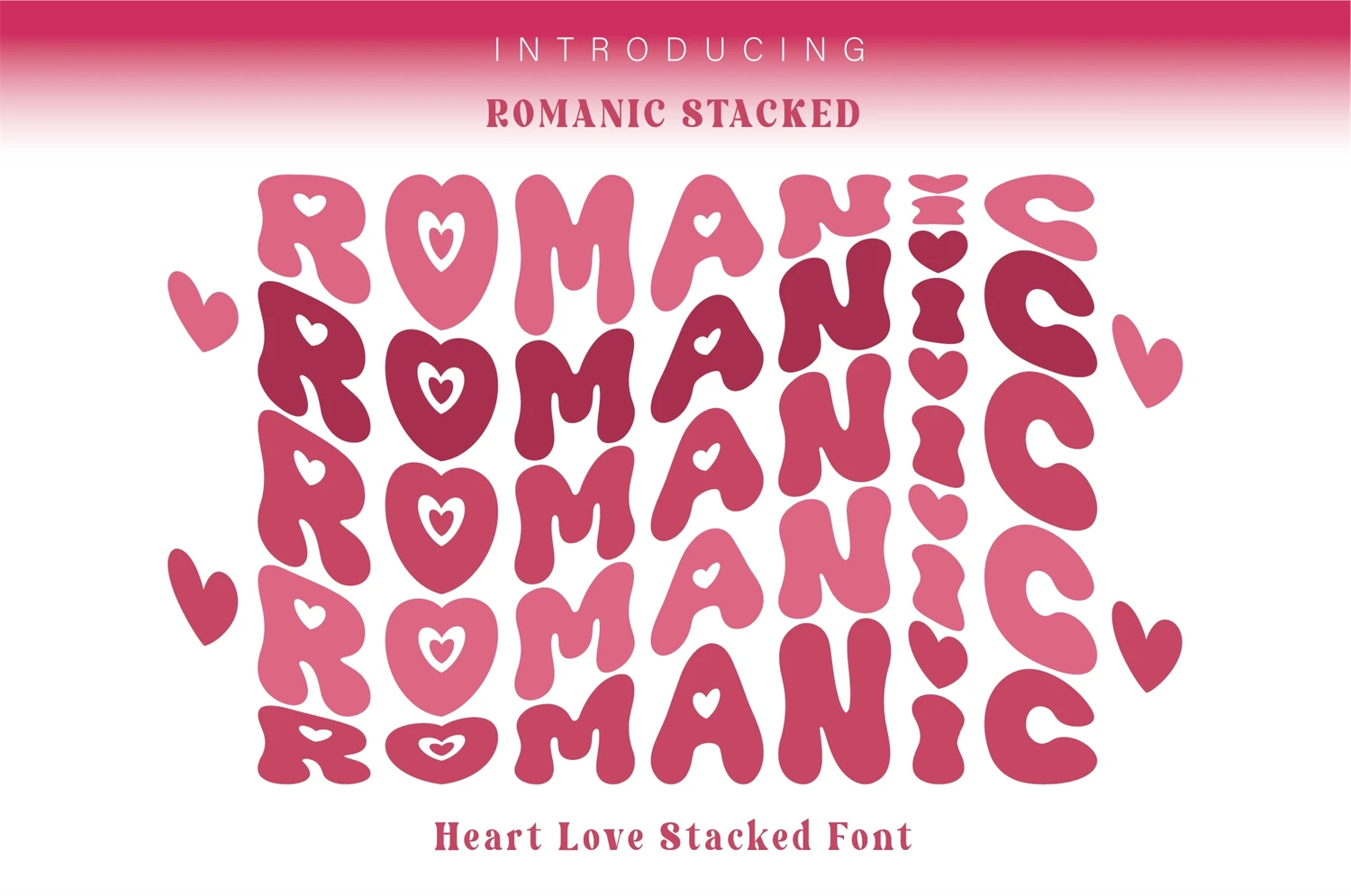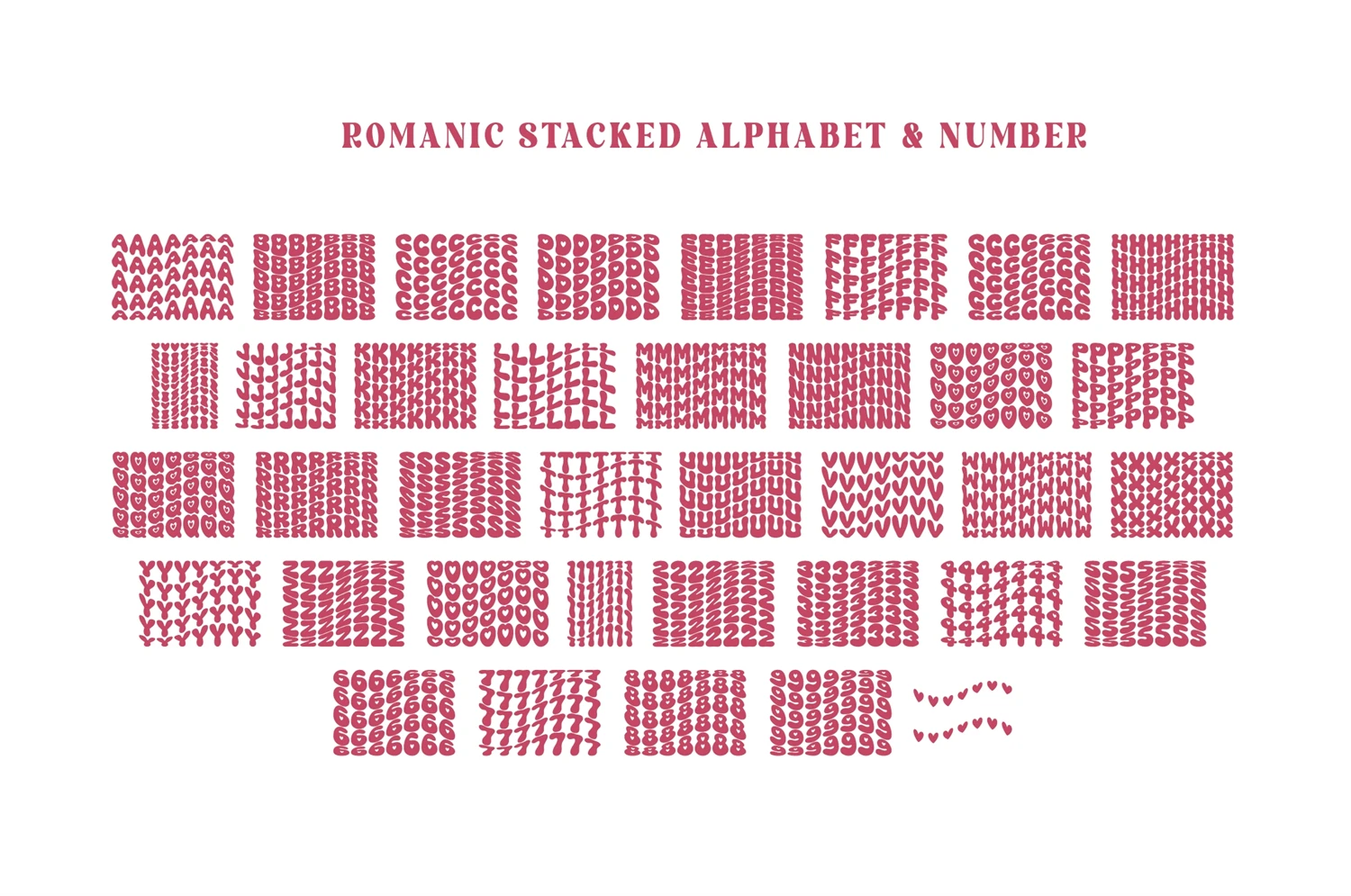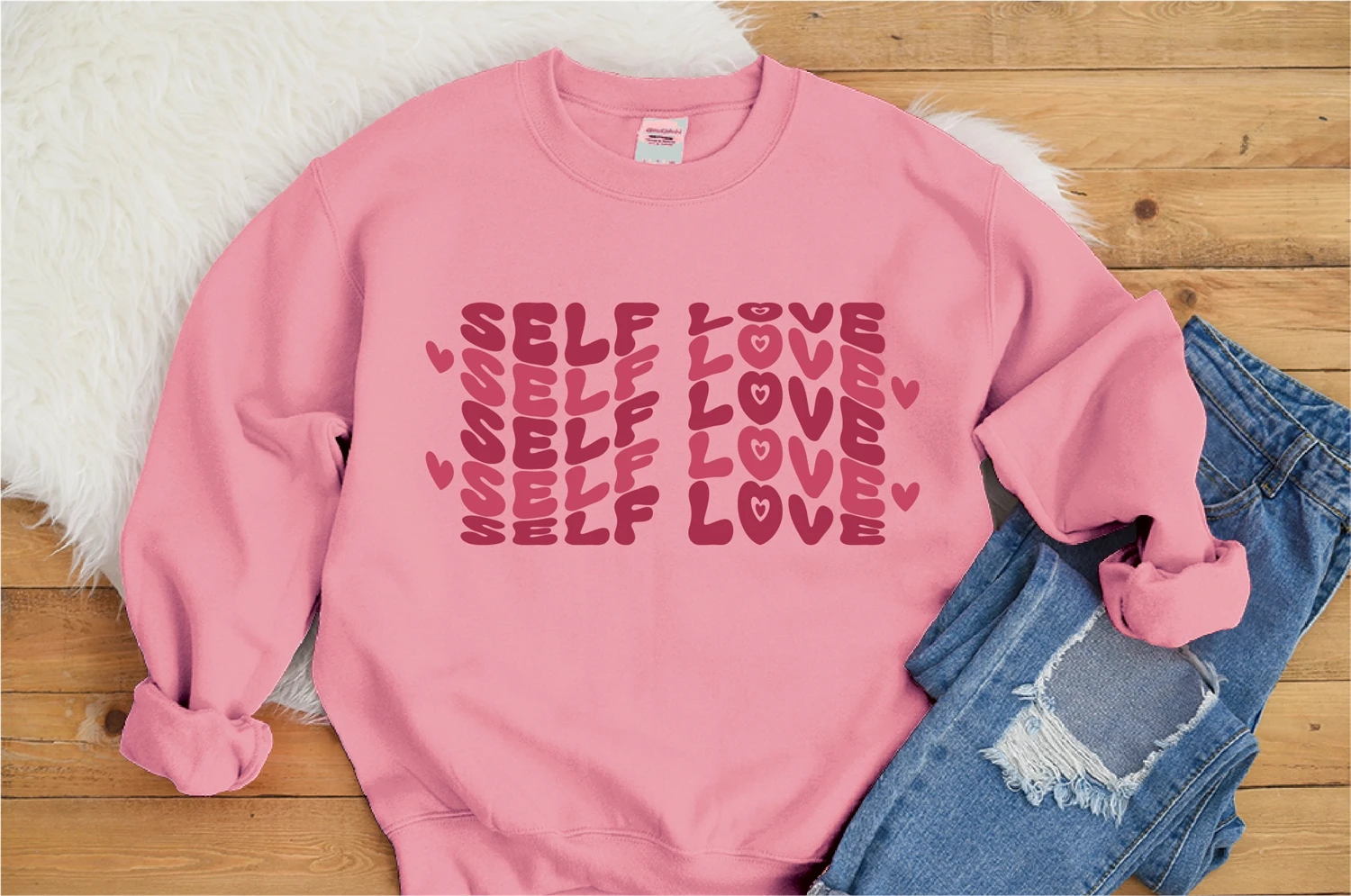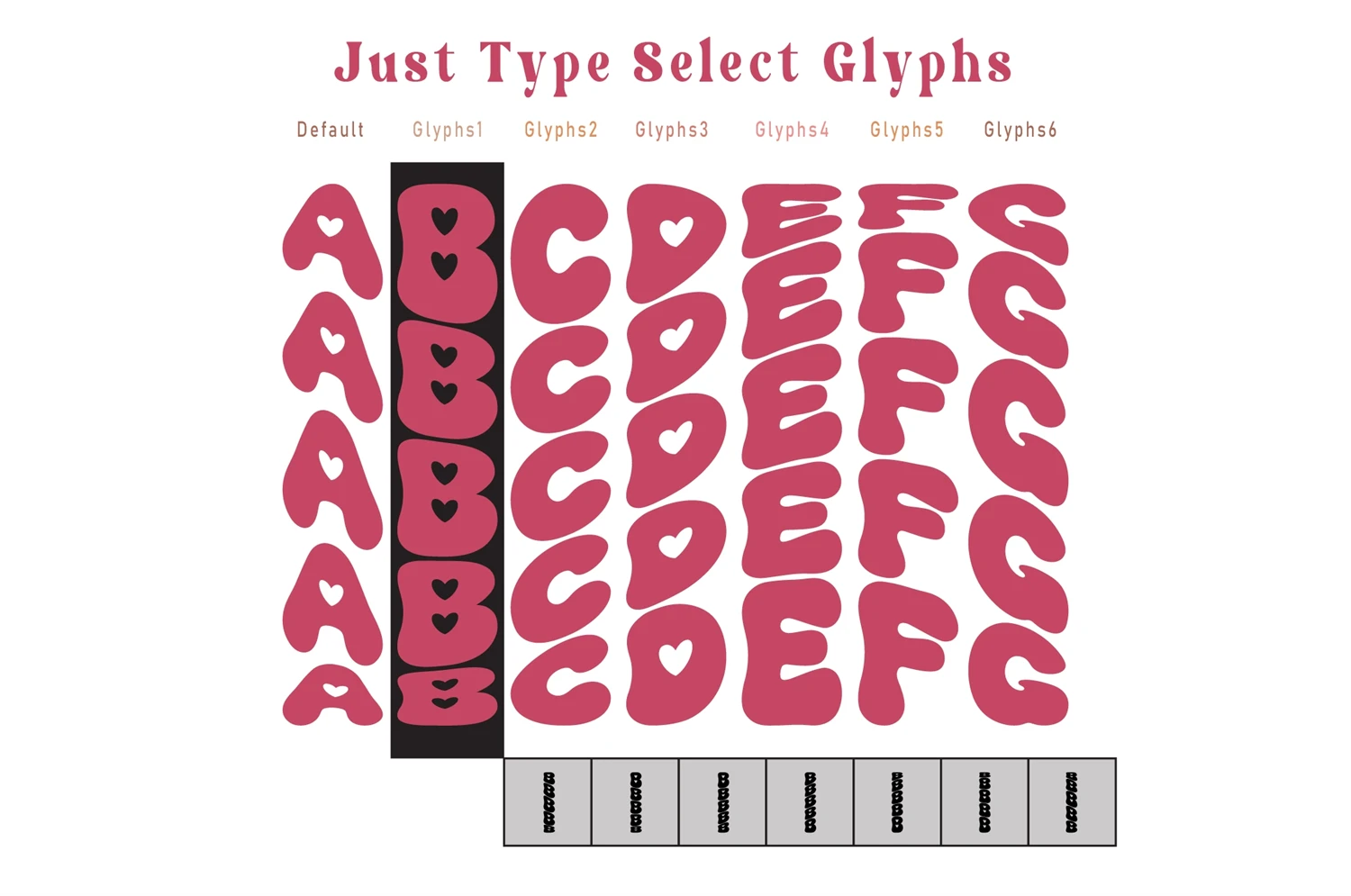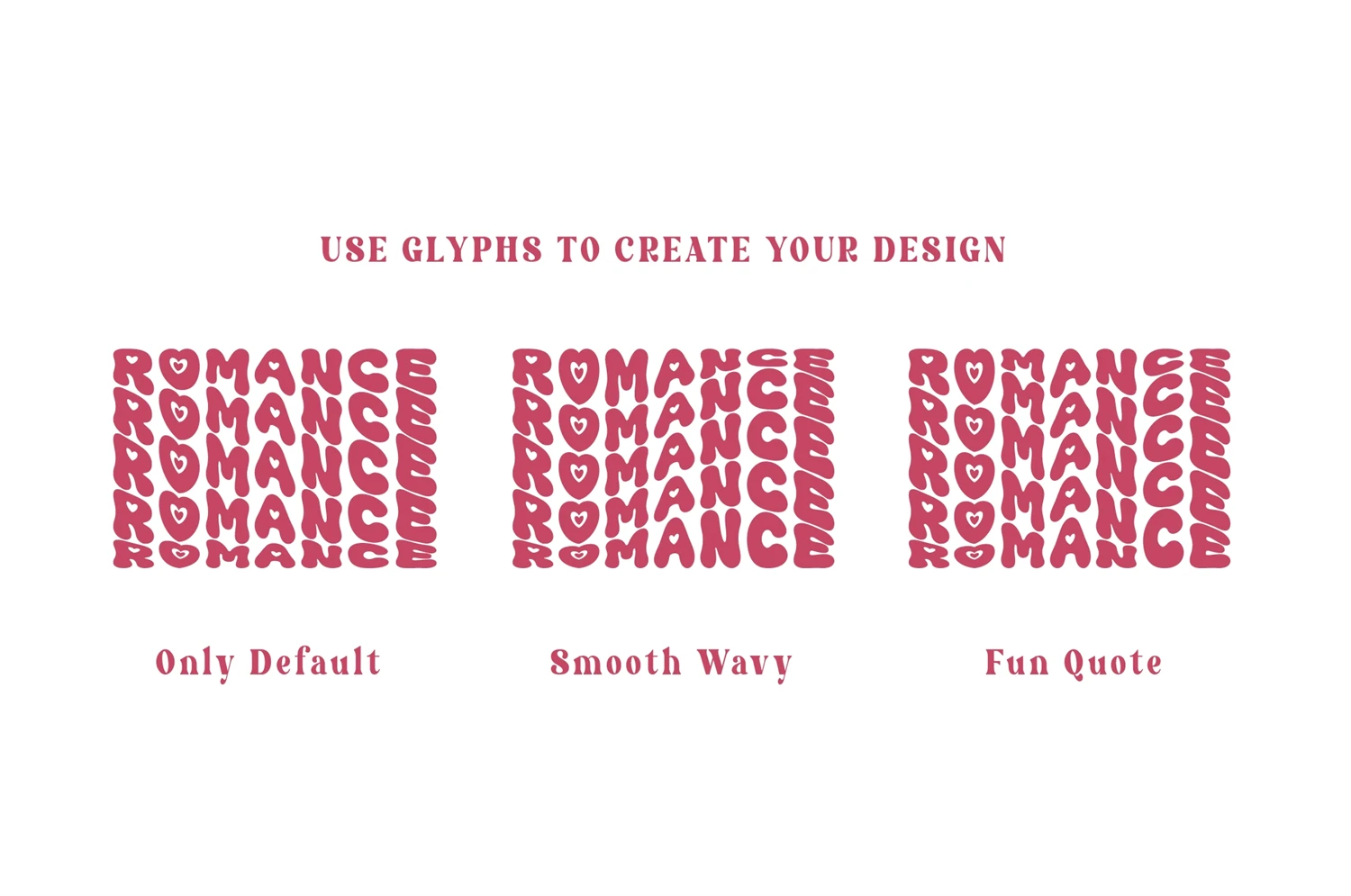
Romavic Stacked is a font in the retro style with a pure affection. This special mirrored typeface serves as a creative token of love, adorned with a distinct heart accent, making it an ideal expression for Valentine's Day and all things romantic. It can be used for a love of designs, such as Valentines Day, crafting project, stickers, t-shirts, sublimation, quotes, and etc.